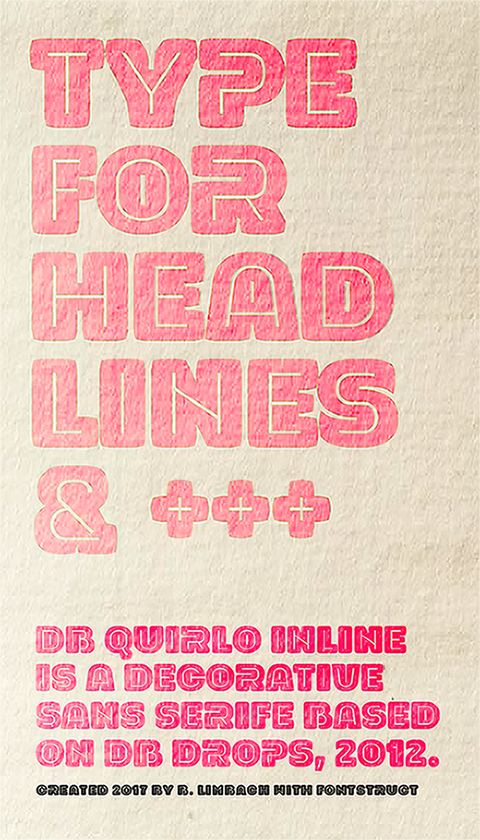
Those lines are beautiful, so elegant, the font is pleasantly easy to read while the chunkiness attracts attention. I note the perfect balance between white space and glyph body.
This is very striking. Great headline font!
Carattere molto bello.
oh, what a beauty. instant classic